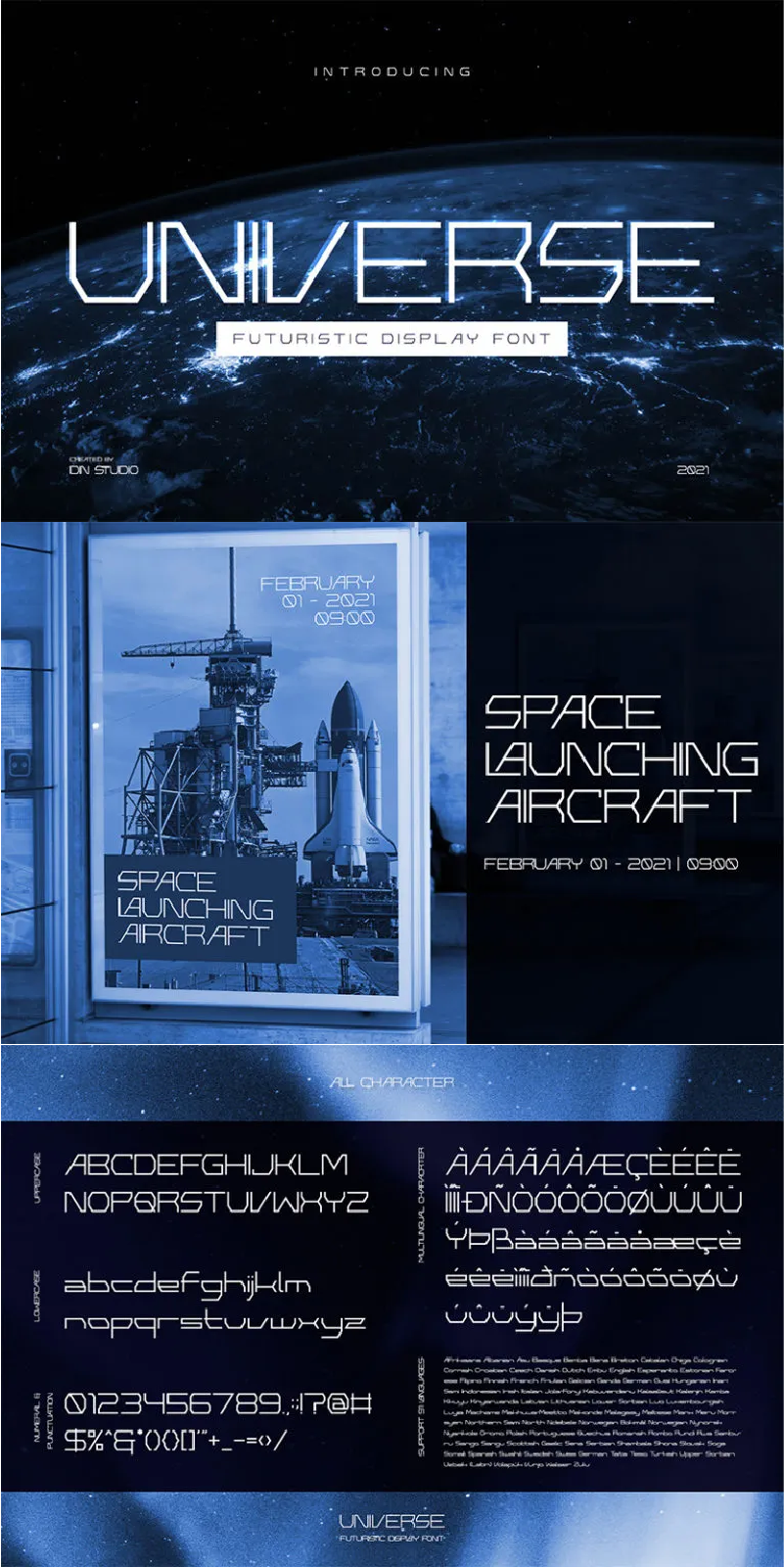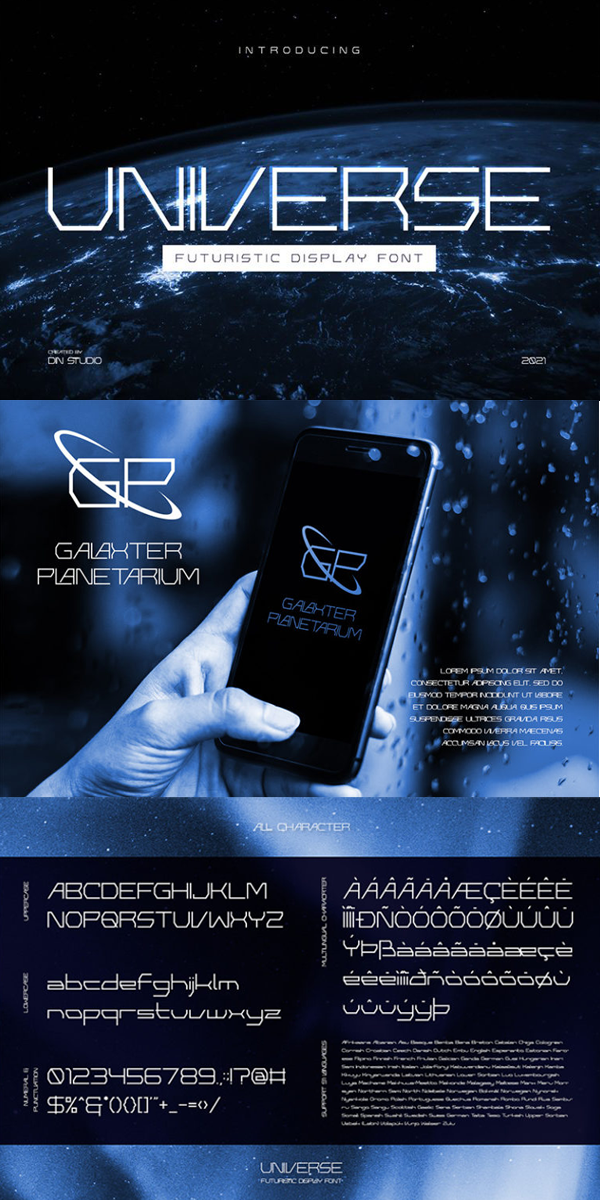
Universe Font
About Universe
Universe – A Futuristic Display Font.
This typeface with futuristic style looks very interesting for loads of different projects and promotions. It is perfect to be used on your website, for your social media branding, Pinterest banners, printed products, and more! See the previews above to get some inspiration on how you can use them.